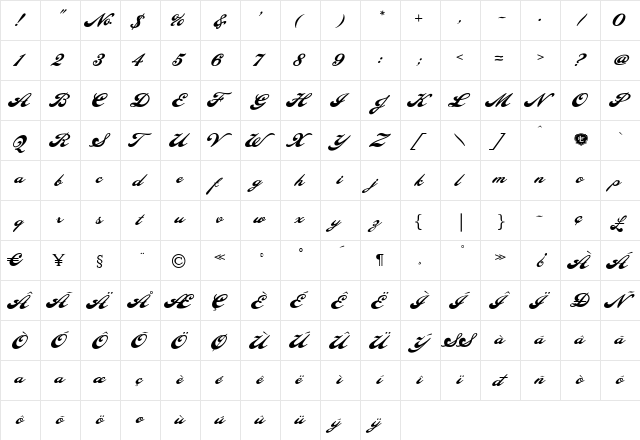
LHFPilsner Regular Medium
Design Context for LHFPilsner Regular Typeface
LHFPilsner Regular takes a measured approach to typography — its balanced proportions and neutral character make it a reliable workhorse for both digital and print work.